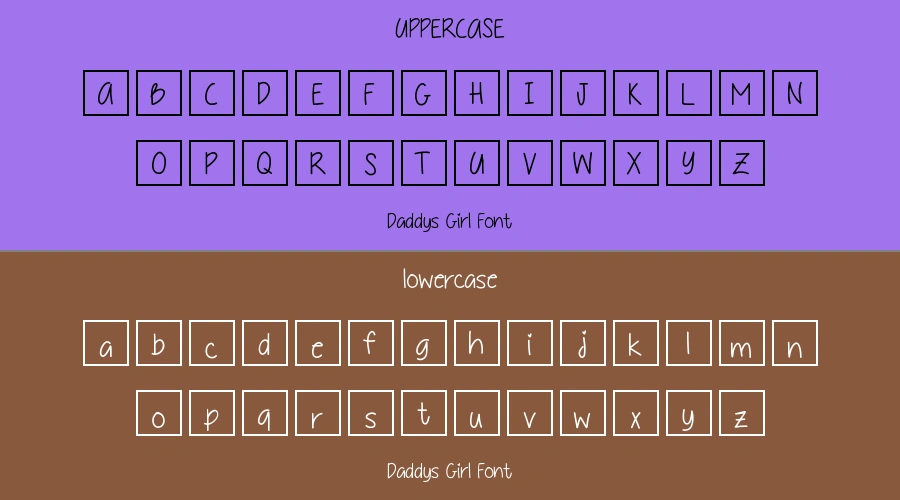
About Daddys Girl Font
Daddys Girl Font embodies typographic excellence through its masterful combination of hand-drawn quality and precision. Created for web design, this typeface delivers exceptional accuracy and user trust across all applications. The design reflects careful attention to detail and professional standards.
Advanced capabilities include distinctive sharp edges and versatile lining figures, giving designers creative control. When used in specification lists, Daddys Girl Font exhibits remarkable reproduction fidelity. The harmonious balance between corner treatment and standards alignment sets this typeface apart.